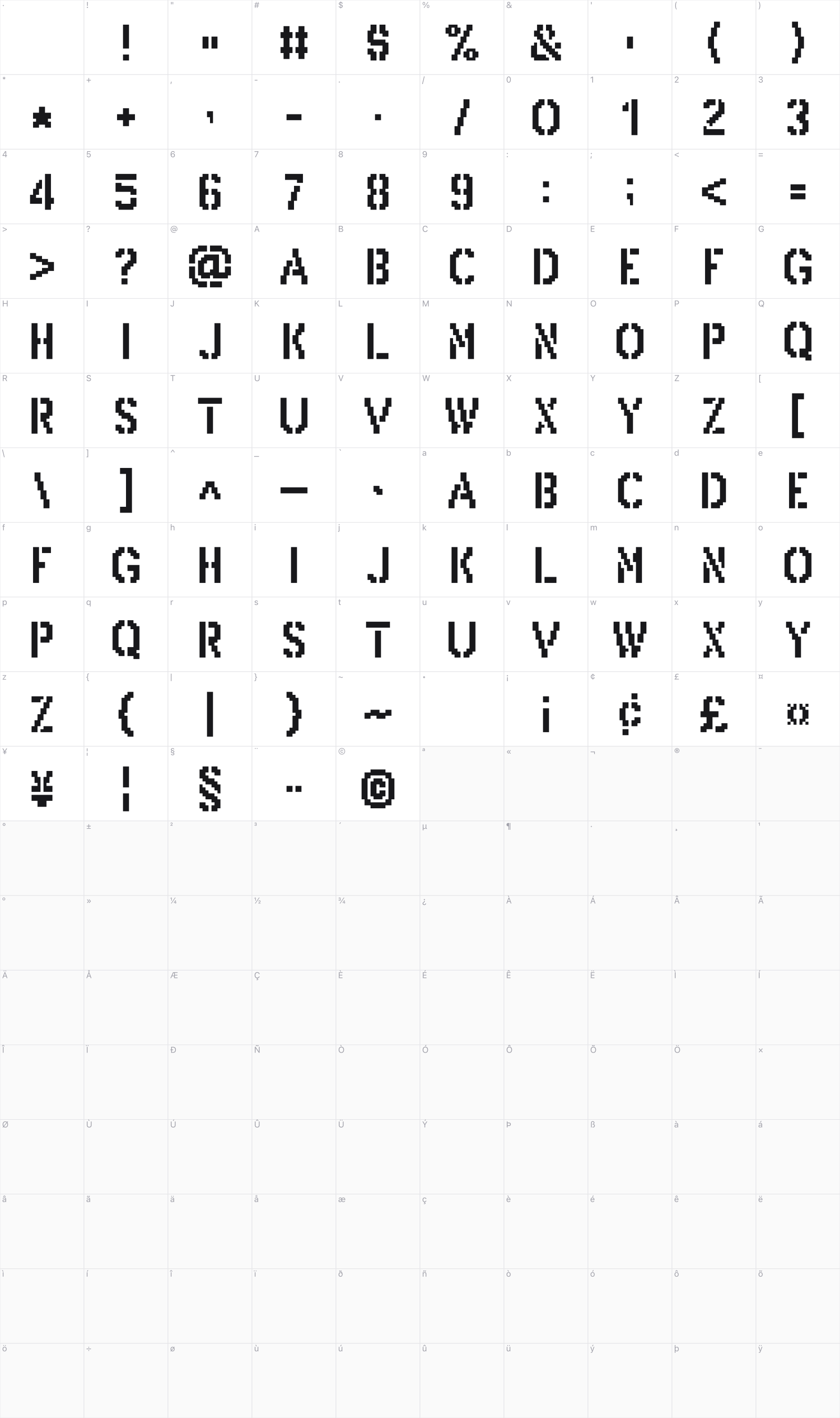
PixelArmy
PixelArmy is a bold stencil font built on a pixel grid, blending military stencil aesthetics with retro bitmap construction. The deliberate gaps and blocky right-angle strokes give it a raw, regimented character that reads instantly as tactical or combat-themed. It works at large sizes where the pixelated stencil details land with full impact.